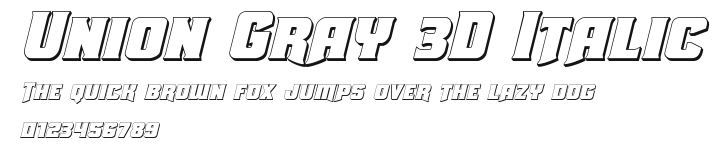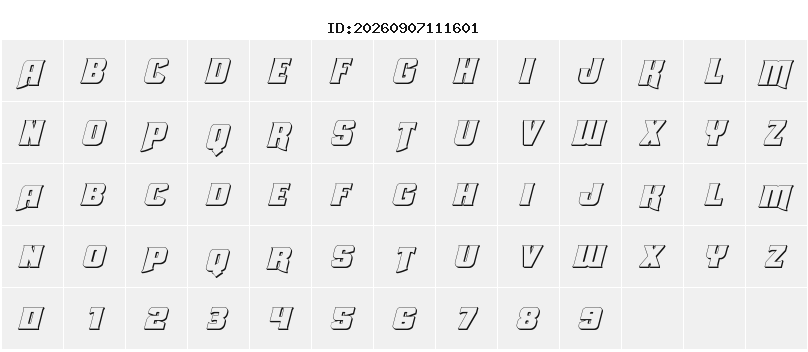
Union Gray 3D Italic Preview
• Font Name: Union Gray 3D Italic
• Full Font Name: Union Gray 3D Italic
• PostScript Name: UnionGray3DItalic
About Union Gray 3D Italic.ttf
Union Gray 3D Italic.ttf is a modern, elegant sans-serif font designed for ultimate readability and visual harmony. Perfect for branding, headlines, web design, and print materials.